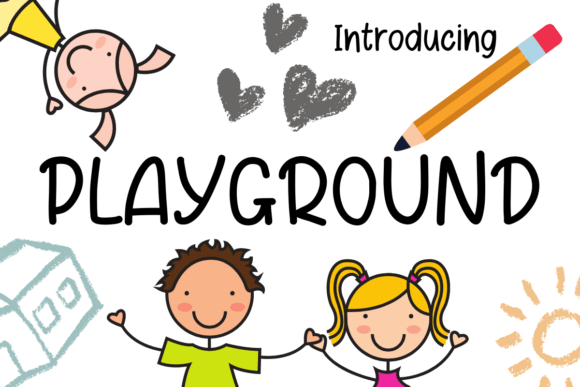
In a world where creativity reigns supreme, Playground Font emerges as a whimsical and captivating script font, tailor-made to ignite the imagination of children and adults alike. This enchanting font, crafted by the skilled hands of Ch LABART, embodies the boundless energy and playful spirit of youth, making it the perfect choice for projects that seek to capture the magic of childhood.
From the moment you lay your eyes upon Playground Font, you'll be transported to a realm of limitless possibilities, where every letter dances with joy and every word bursts with personality. Its charmingly imperfect lines and playful curves evoke a sense of nostalgia, reminding us of the days when learning was an adventure and imagination had no bounds.
Ch LABART, the creative mind behind Playground Font, understands the profound impact that fonts can have on our lives. With this creation, they sought to capture the essence of childhood and provide a font that would inspire and motivate kids to embark on new adventures, explore their creativity, and embrace the beauty of learning.
Whether you're a teacher seeking to create captivating lesson plans, an author penning enchanting children's books, or a parent looking to make homework a joyful experience, Playground Font is your ultimate companion. Bring your words to life with this delightful font and watch as your audience is captivated by its charm.
Playground Font's versatility extends far beyond the classroom. Its playful spirit adds a touch of whimsy to invitations, greeting cards, and social media posts, making them impossible to resist. Unleash your creativity and let Playground Font transform your designs into unforgettable works of art.
So, step into the world of Playground Font and let your imagination soar. Discover the magic that lies within each letter and create projects that bring smiles to faces, inspire young minds, and leave a lasting impression. Let Playground Font be your guide on this enchanting journey, where creativity knows no bounds.